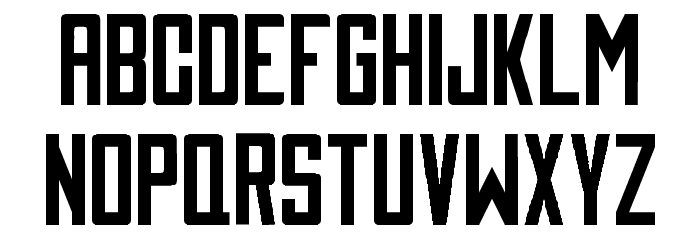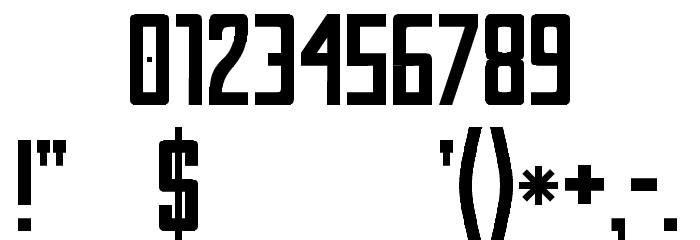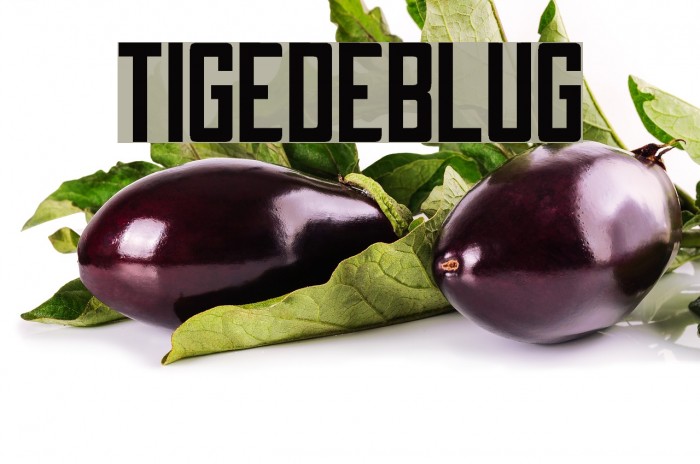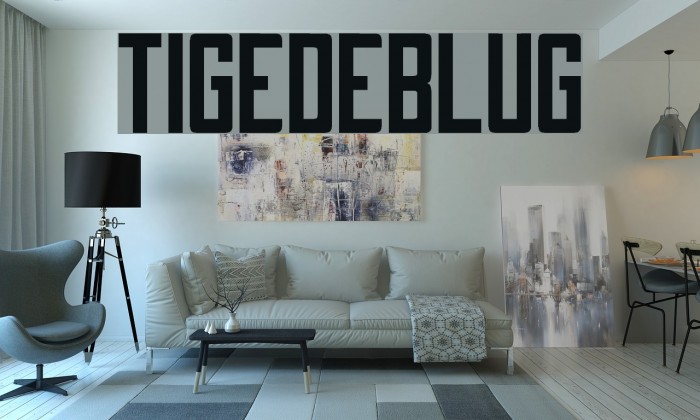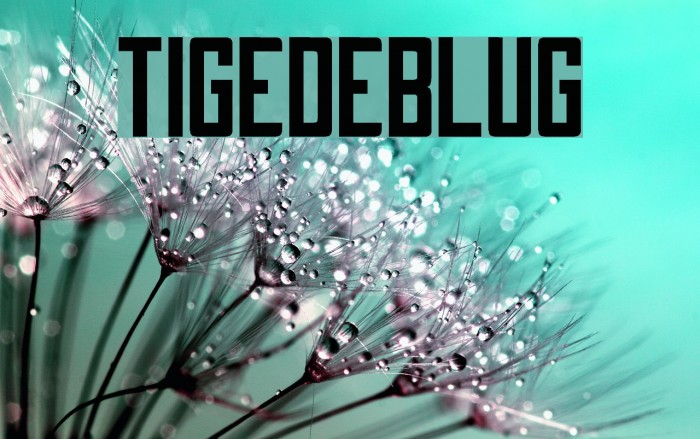
Tigedeblug Font
This font features a bold and striking design with a geometric and modern aesthetic. The uppercase letters are tall and narrow, with sharp angles and clean lines that convey a sense of strength and stability. The lowercase letters maintain the same geometric style, ensuring consistency throughout the typeface. The numbers are equally bold, with a uniform height that matches the uppercase letters, making them highly legible. Special characters are designed to complement the overall style, with a similar emphasis on boldness and clarity. This font is ideal for making a strong visual impact, suitable for headlines, posters, and branding materials where a modern and assertive look is desired.
A bold, geometric font with sharp angles and a modern aesthetic.
- Proposed Projects: Ideal for branding, posters, headlines, and any project requiring a strong visual impact.